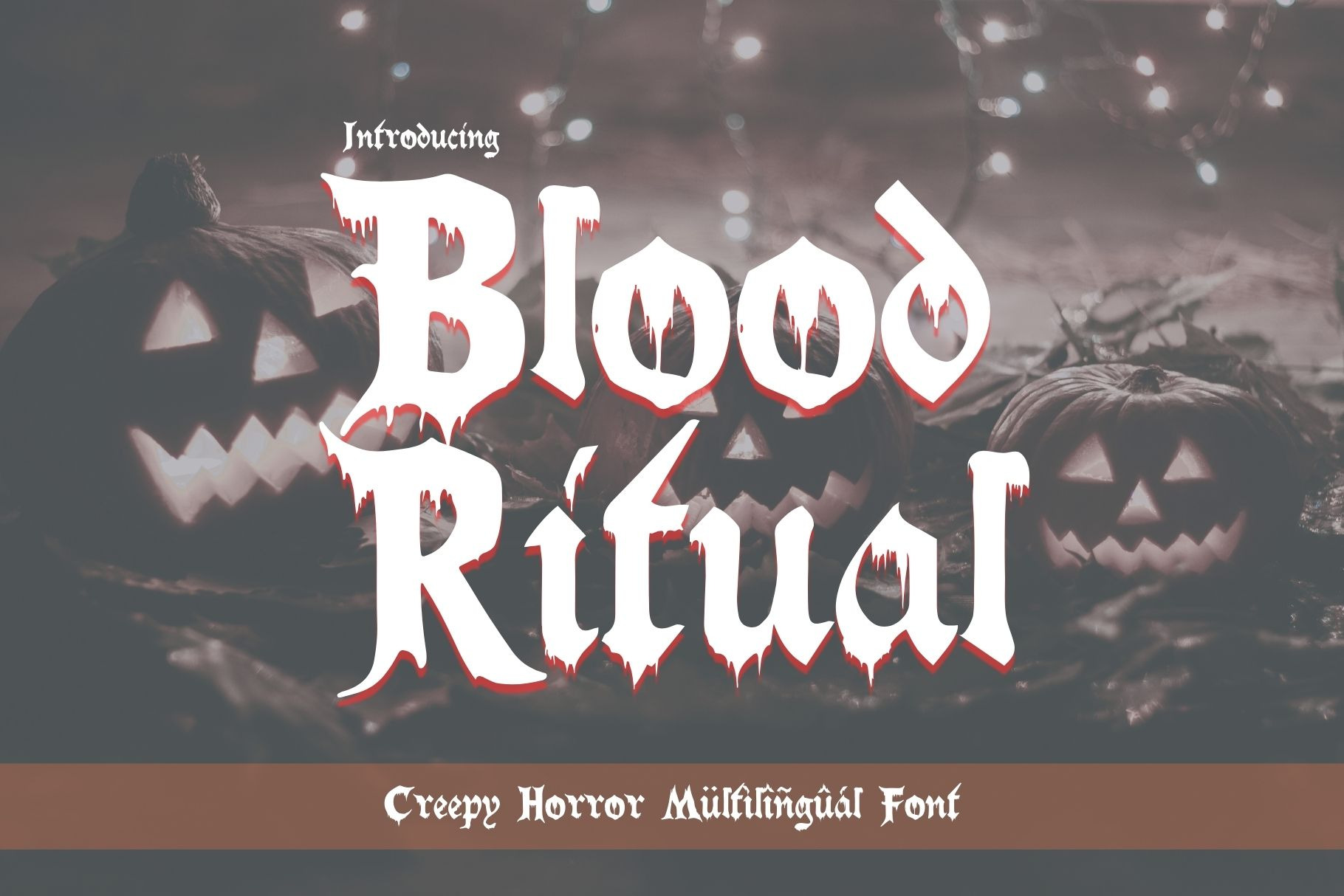
Ritual Multilingual Horror Font
Unleash Spine-Chilling Style with Blood Ritual: A Dripping Horror Font 🩸 Send shivers down your audience's spine with Blood Ritual, the horror font that's both bone-chillingly creepy and terrifyingly readable. This versatile typeface, dripping with eerie charm, is perfect for infusing your projects with a chilling dose of horror aesthetic.
Crafted with meticulous detail, Blood Ritual boasts:
🩸208 glyphs of pure horror, including uppercase and lowercase letters.
🩸Multilingual support to haunt a global audience.
🩸A perfectly balanced design that's both legible and dripping with unsettling style.
Ideal for:
🩸Halloween designs that need an extra dose of fright.
🩸Podcast covers that promise a terrifyingly good time.
🩸Book covers guaranteed to make readers sleep with the lights on.
🩸Posters, logos, social media graphics, and any project that dares to embrace the darkness.